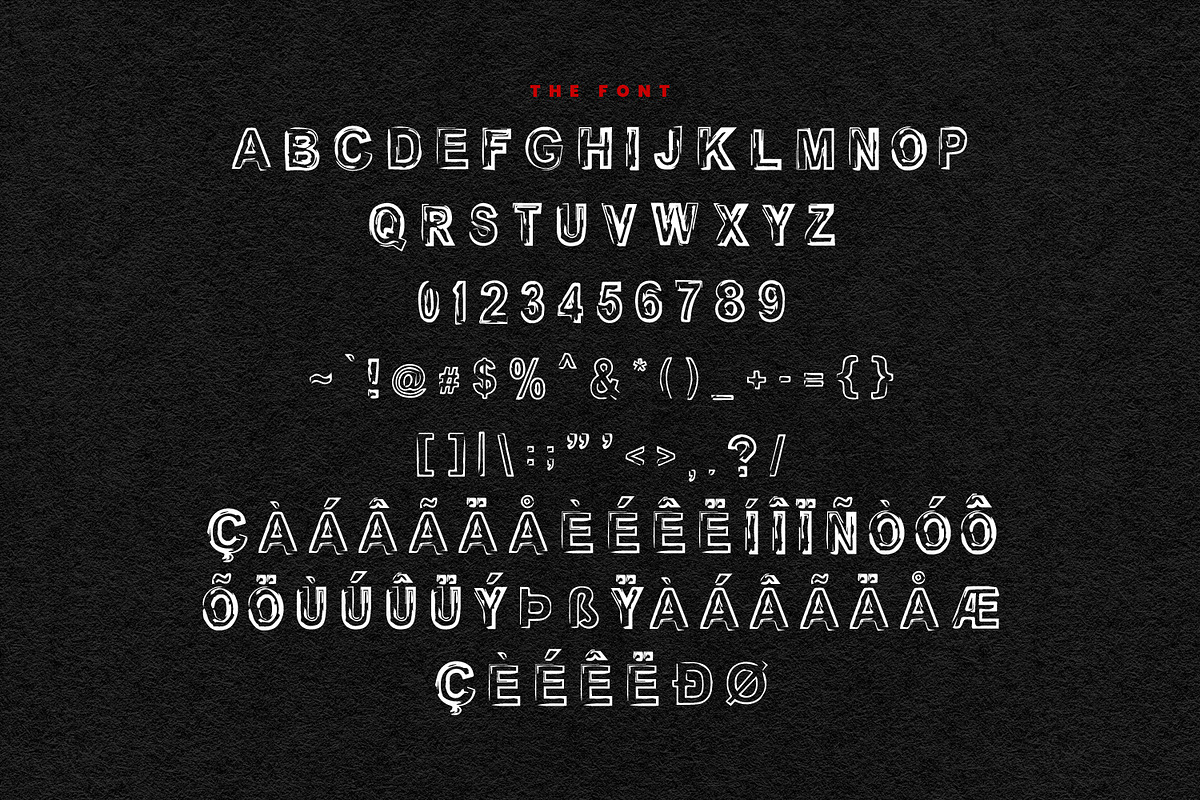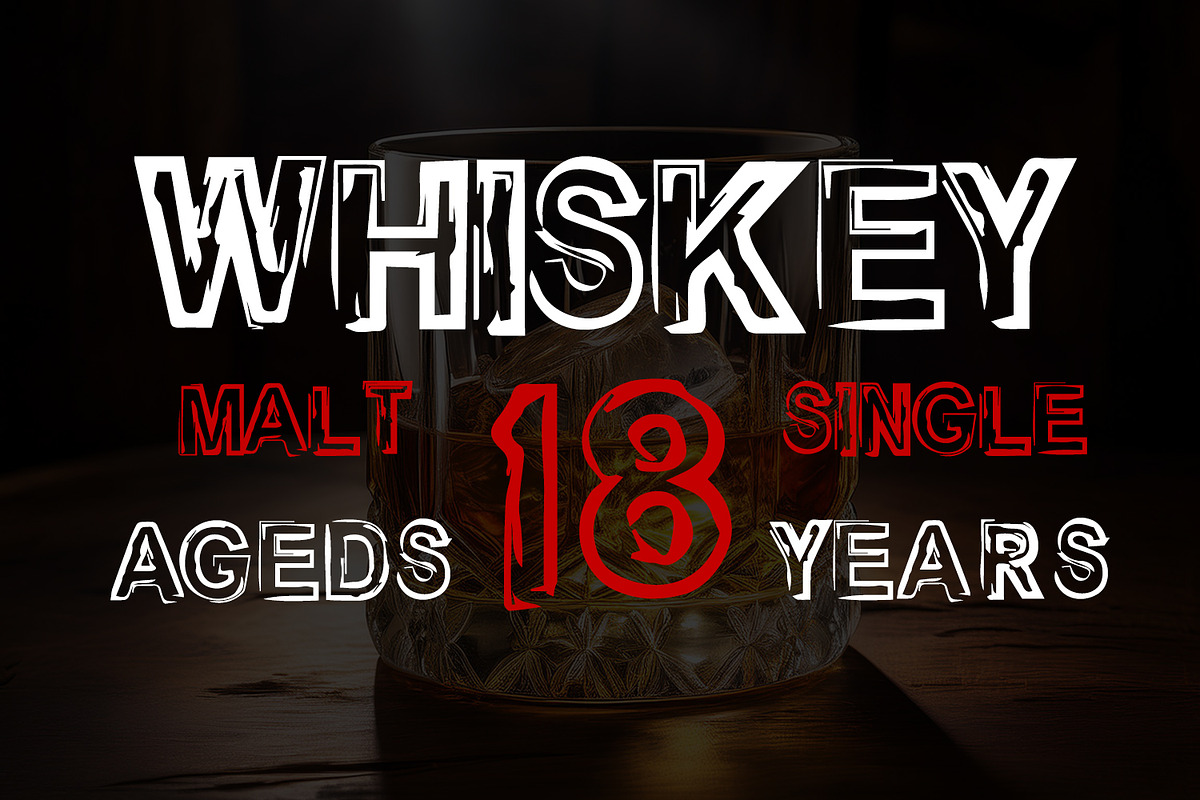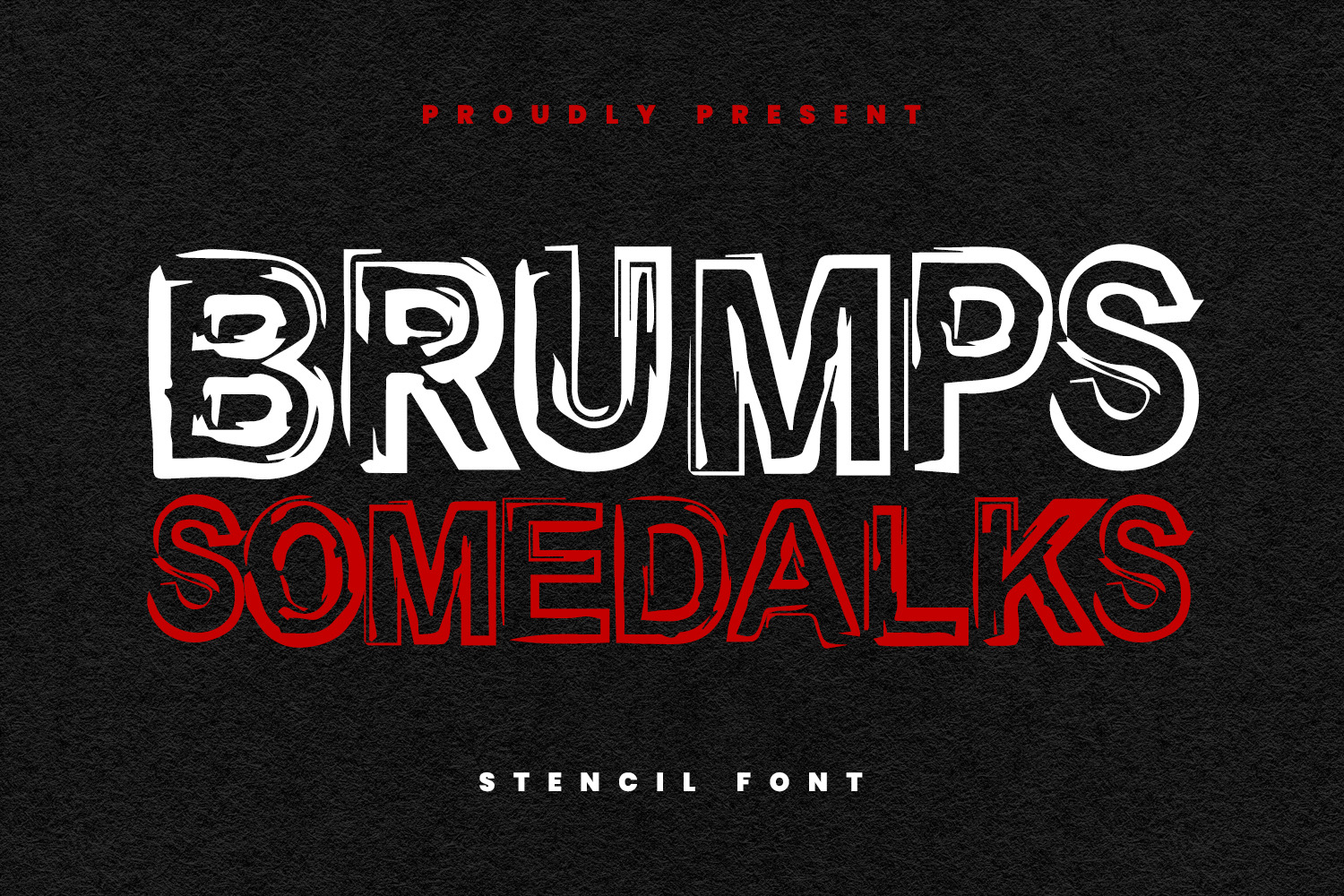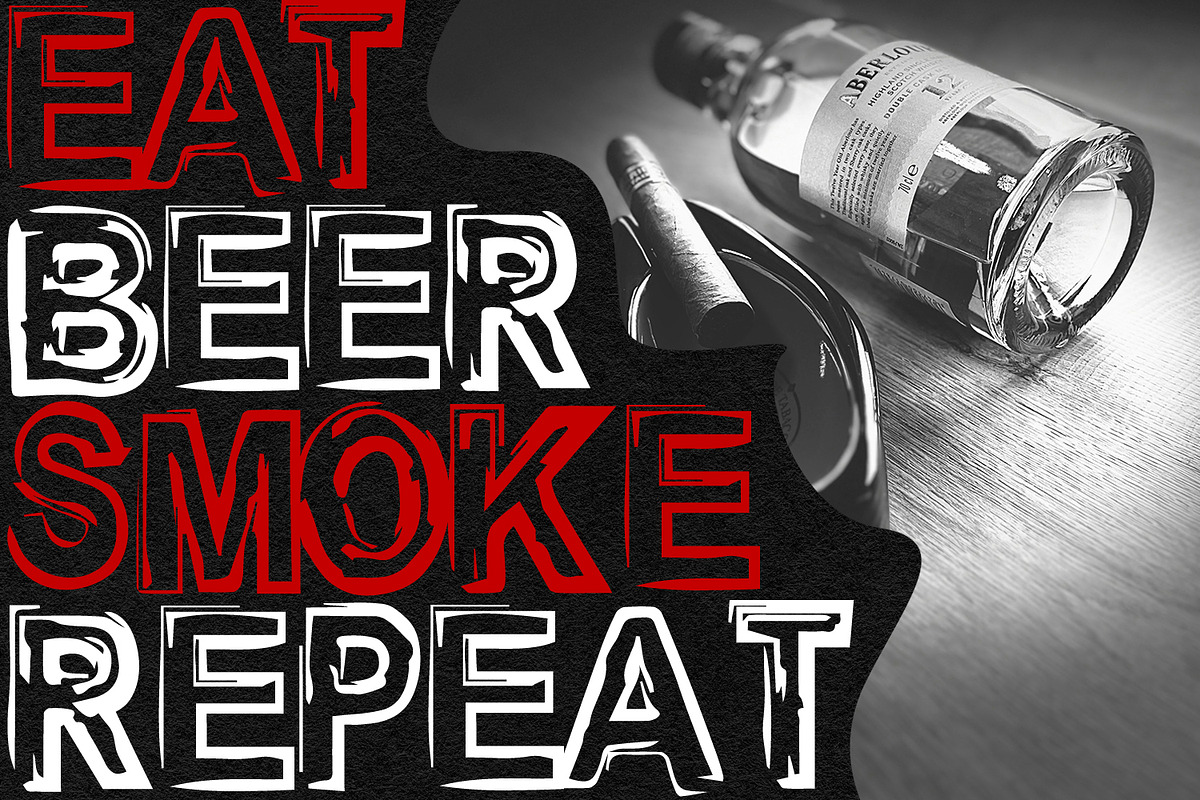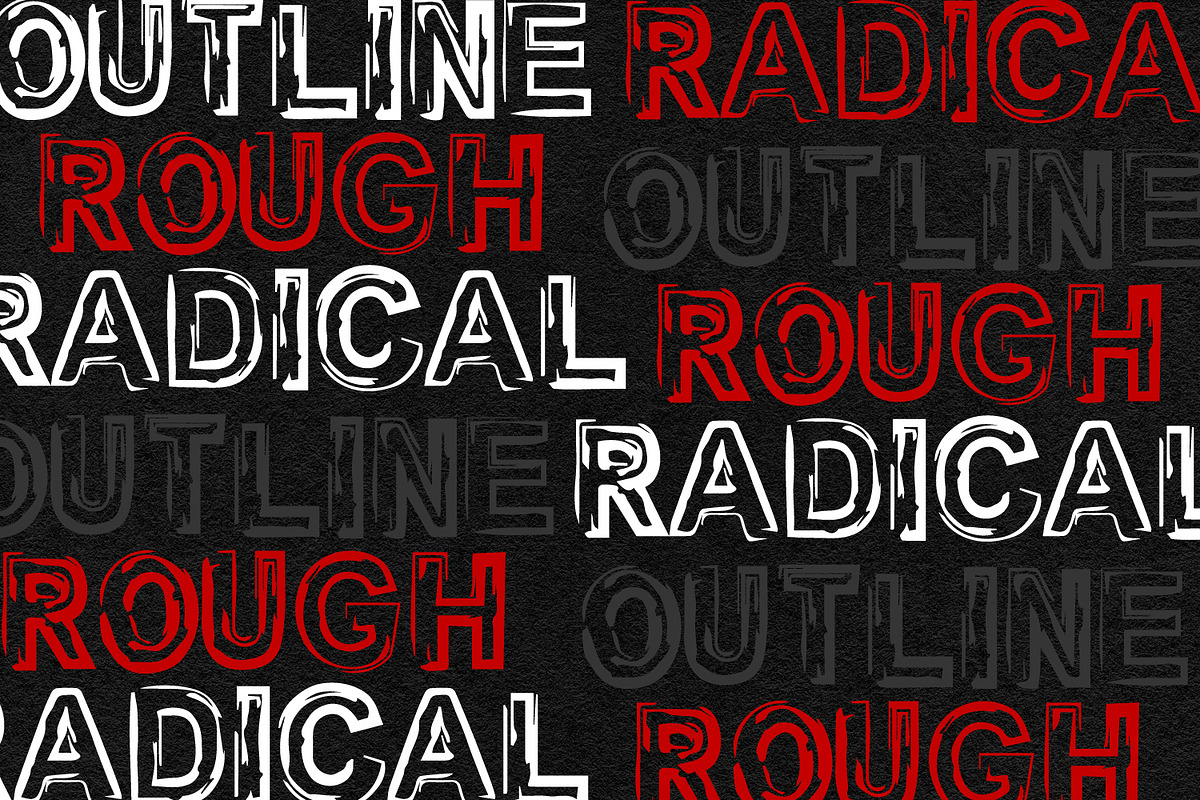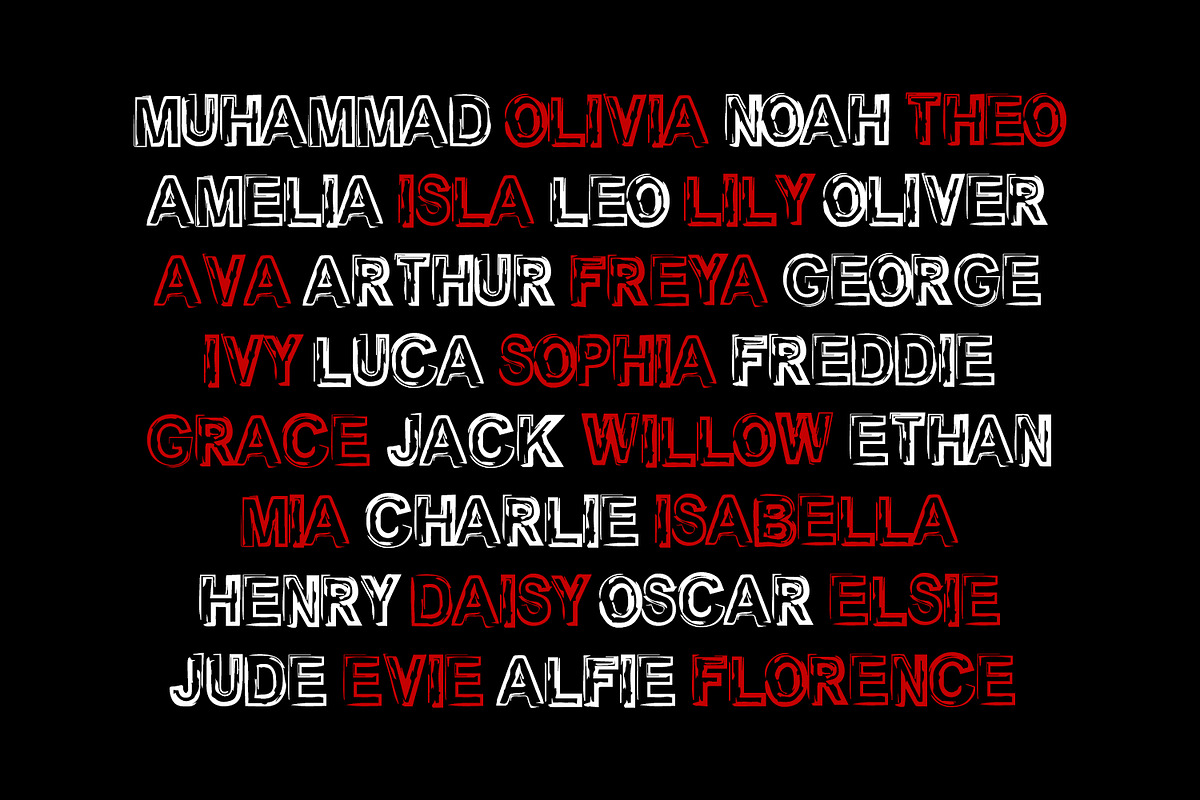
Brumps Somedalks Font
Brumps Somedalks is a display modern font. With bold tall and hard stroke and fun character. To give you an extra creative work. Brumps Somedalks font support multilingual more than 100+ language. This font is good for logo design, Social media, Movie Titles, Books Titles, a short text even a long text letter and good for your secondary text font with sans or serif. Make a stunning work with Brumps Somedalks Font.